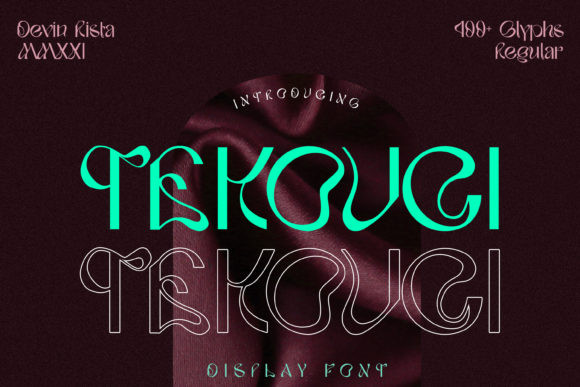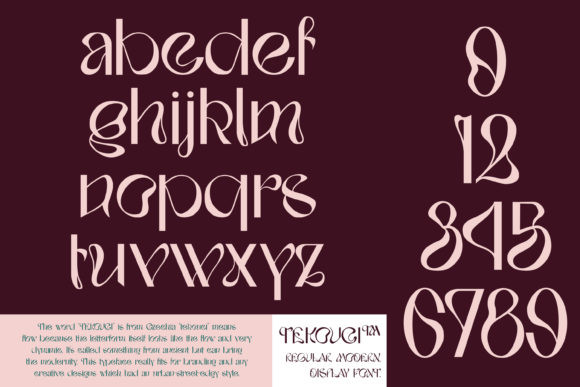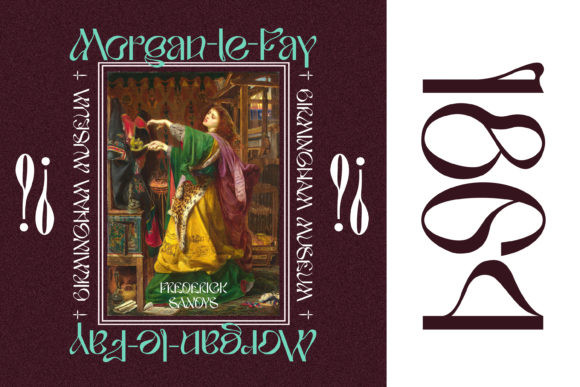
Tekouci Font
Tekouci is a unique and whimsical display font. It is defined by neat and quirky lines and is perfect for fashion branding or editorial designs. This dazzling display font will turn any creative idea into a standout!